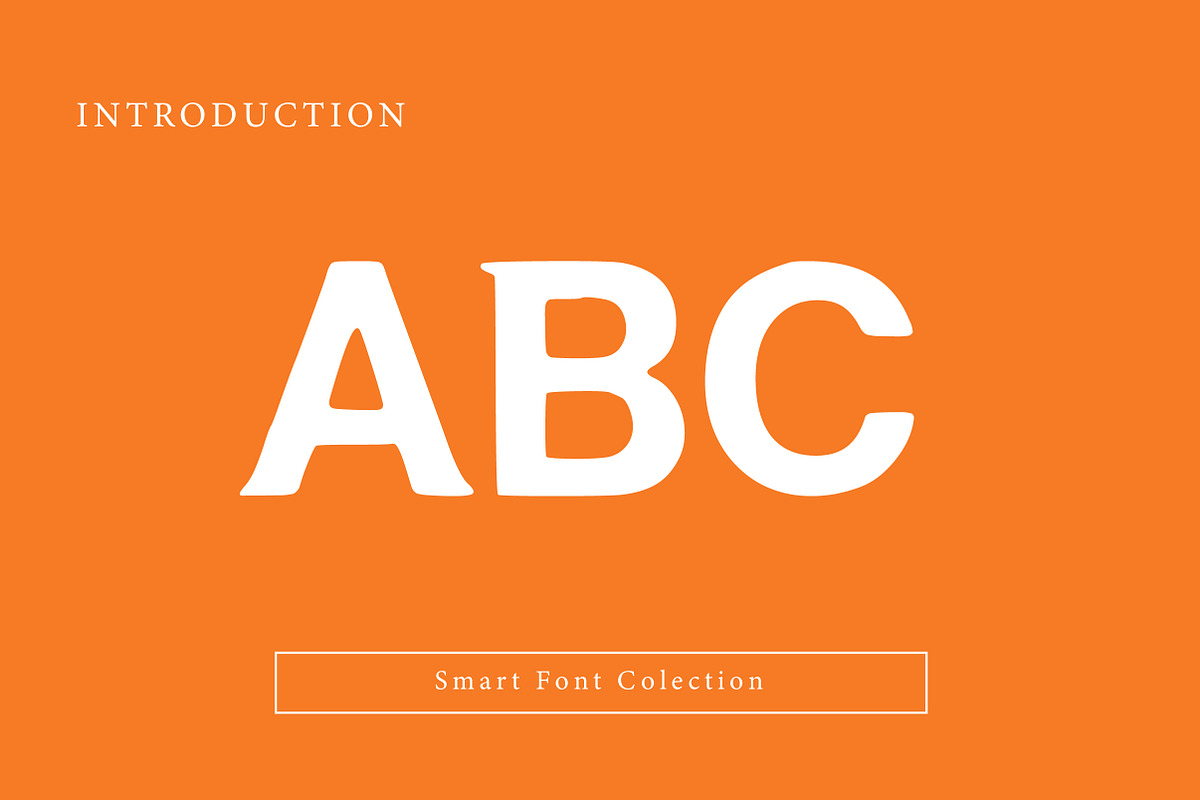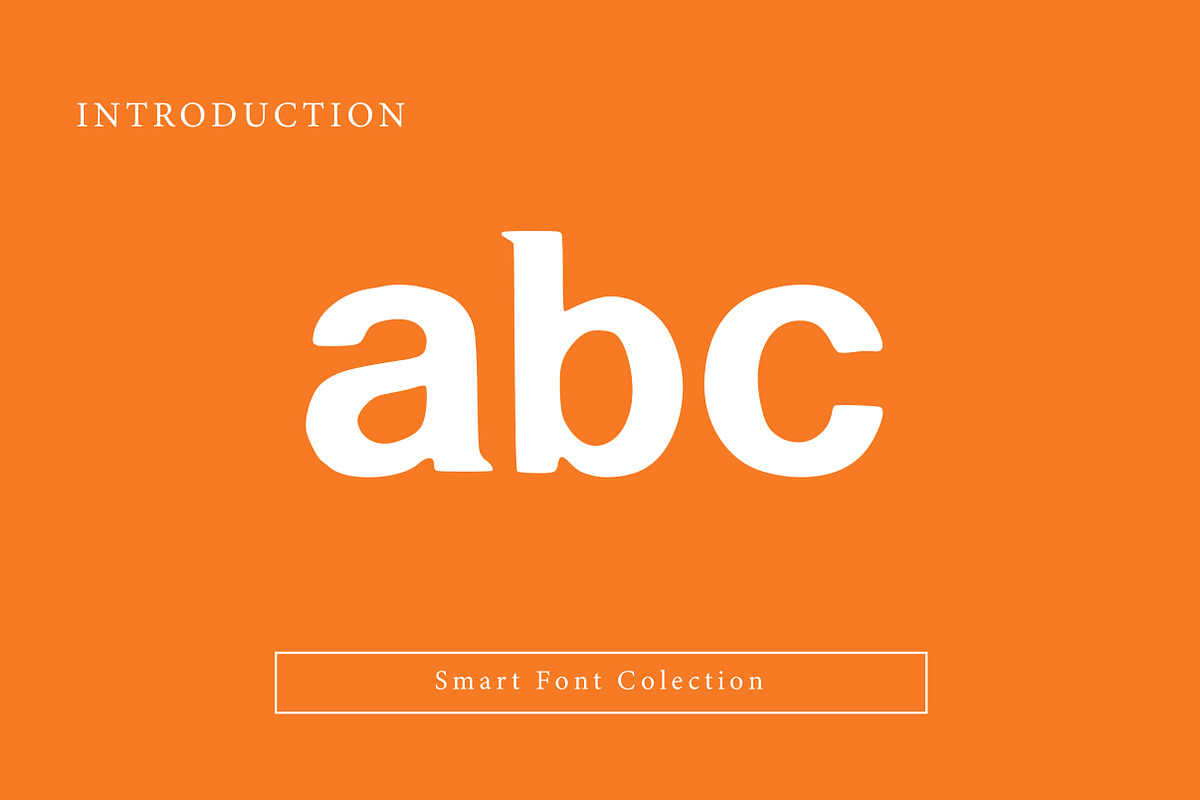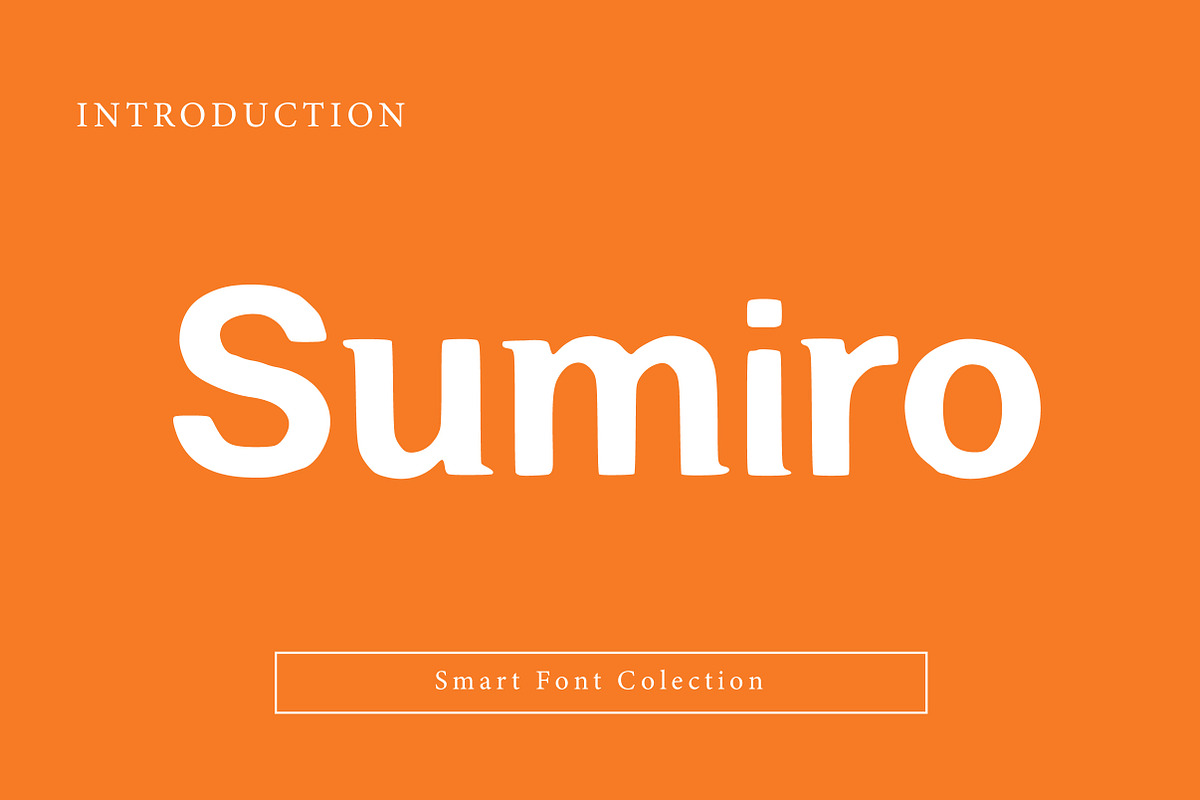
SUMIRO
SUMIRO is a bold, rounded sans-serif typeface with a friendly, modern, and highly approachable character. Its smooth curves, strong letterforms, and clean structure make it perfect for branding, logos, headlines, packaging, social media graphics, and playful visual identities. SUMIRO balances softness with confidence, delivering excellent readability while maintaining a cheerful and contemporary tone. It is especially well-suited for startups, lifestyle brands, creative projects, and designs that aim to feel warm, modern, and engaging across both digital and print platforms.